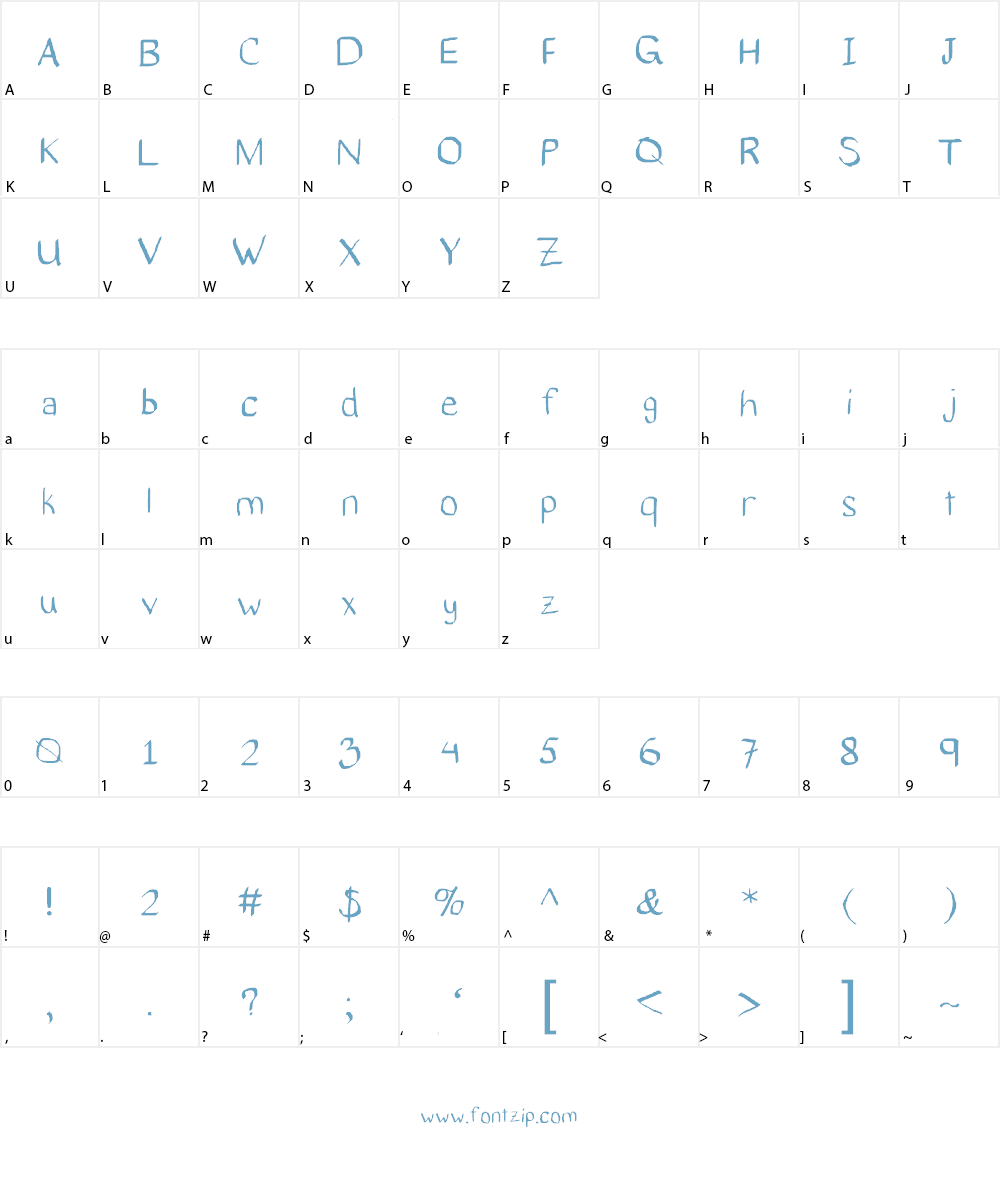
I couldn't find a font that had 0, 7, AND Z the way that I like them slash zero from top left to bottom right and strikethrough 7 and Z, so I made one for the next time I need to type equations...